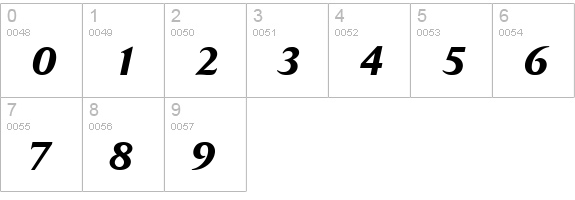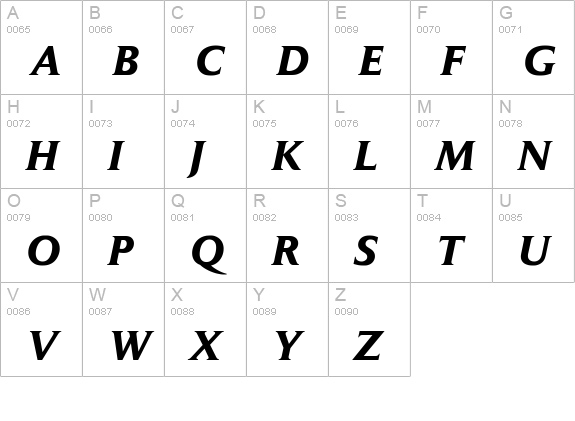
Daily News Bold Italic Font Details
Daily News Bold Italic is a strong, high-contrast, italic variant in the Daily typeface family \xE2\x80\x94 well suited to headlines, attention-grabbing titles, and strong calls-to-action.
Introducing the captivating and versatile Daily News Bold Italic font! With its bold yet elegant design, this font is perfect for grabbing attention and making a statement. Whether you're creating eye-catching headlines, designing striking logos, or adding a touch of sophistication to your marketing materials, Daily News Bold Italic is the ideal choice. Featuring sleek curves and fluid lines, this font exudes modernity and professionalism. Its bold weight adds a strong and confident touch to any design, while the italicized letterforms add a hint of elegance and flair. The harmonious balance between boldness and italicization makes Daily News Bold Italic a truly unique and visually appealing font. But that's not all – the best part is, Daily News Bold Italic is absolutely free to download! Yes, you heard it right. This stunning font is freely available at FontsMarket.com, where you can effortlessly access and incorporate it into your creative projects. Say goodbye to expensive font purchases and hello to the freedom of unlocking your design potential with a high-quality font that won't break the bank. So whether you're a professional designer, a passionate hobbyist, or simply someone looking to add a touch of style to your everyday documents, Daily News Bold Italic is the perfect choice. With its striking presence, versatile applications, and the added bonus of being free to download at FontsMarket.com, this font is sure to become your go-to favorite for all your design needs. Don't miss out on the opportunity to elevate your creations with the bold and italic beauty of Daily News Bold Italic – get it now and let your creativity soar!